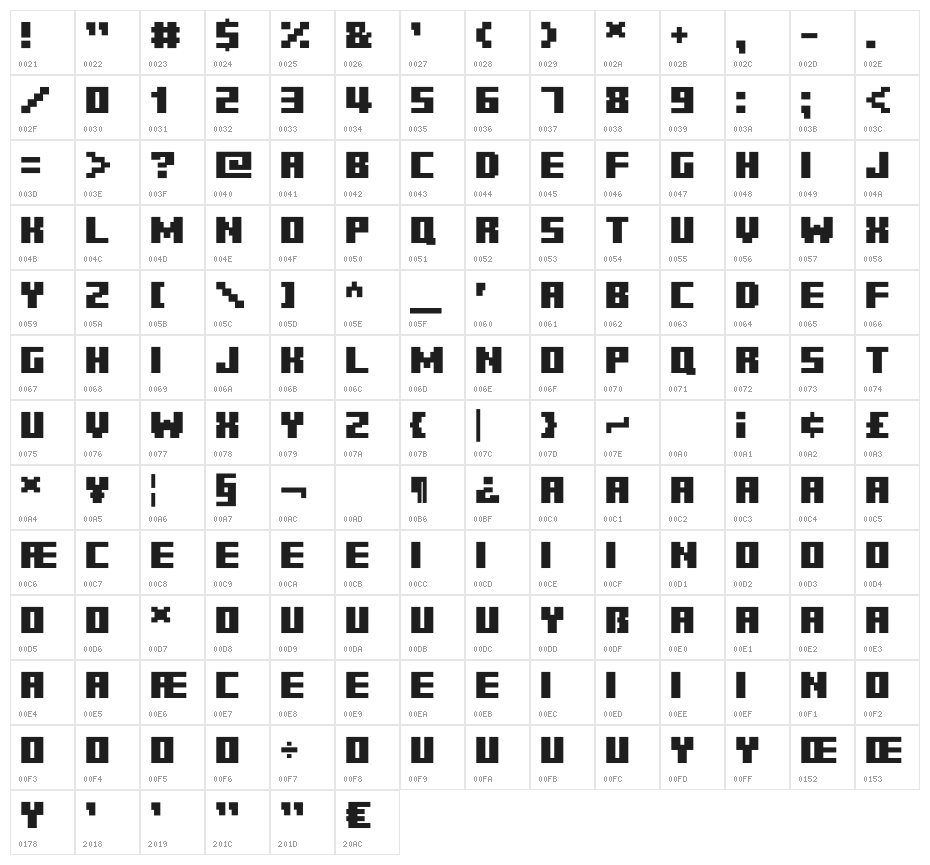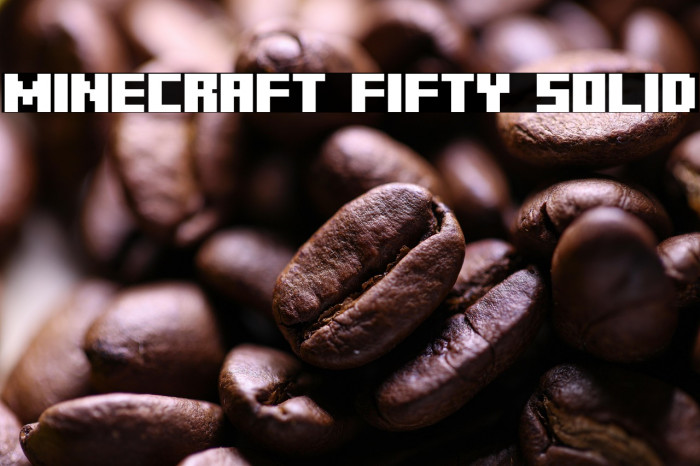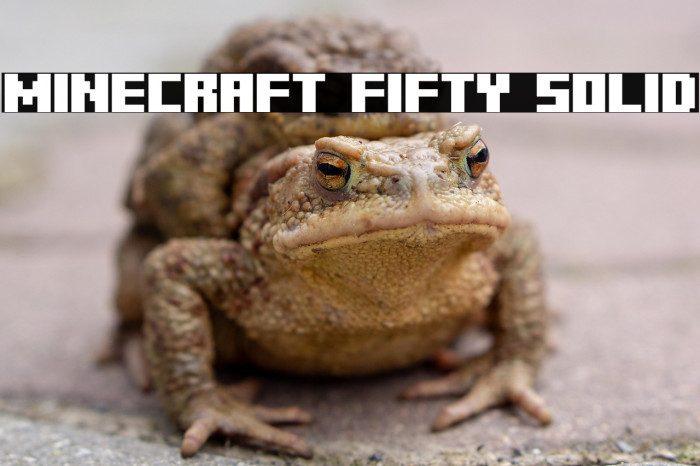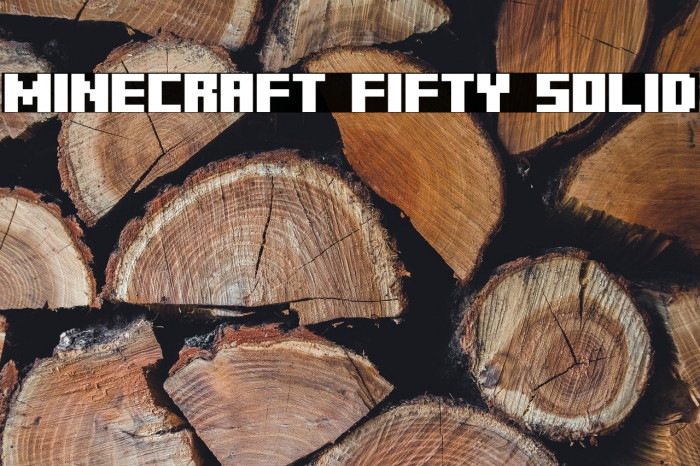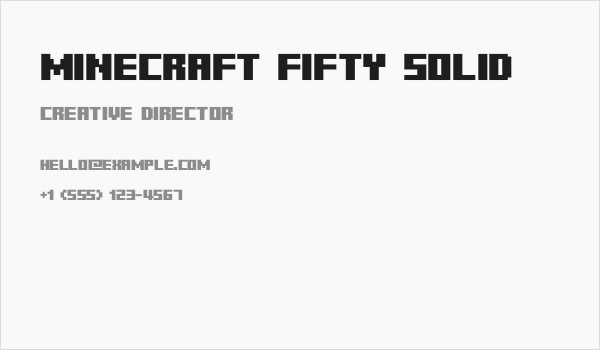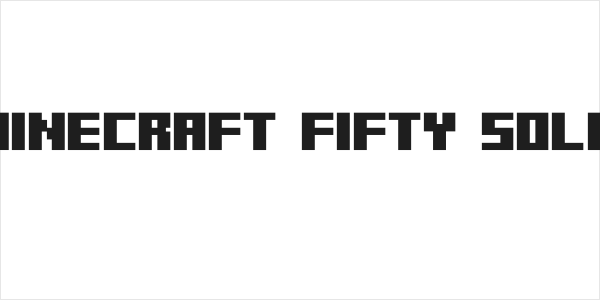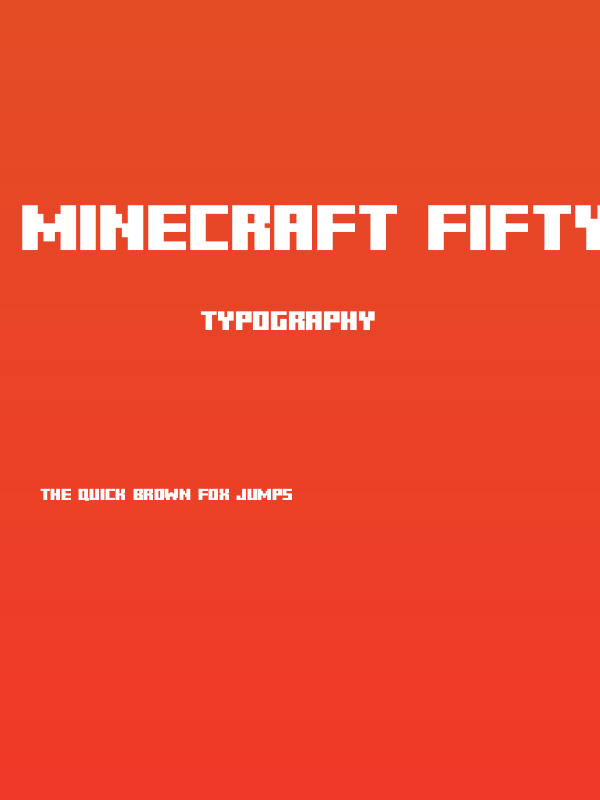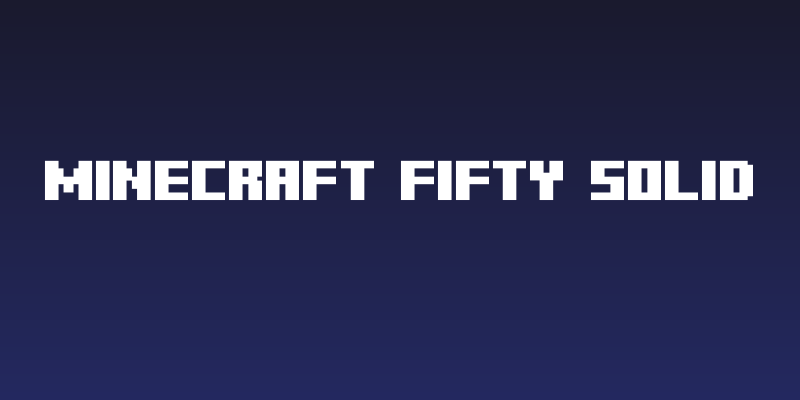
Minecraft Fifty Solid Font
Minecraft Fifty Solid Description
This font features a bold, blocky design reminiscent of pixel art, making it ideal for projects that require a retro or digital aesthetic. The characters are uniformly square, with each letter and number maintaining a consistent height and width, contributing to a cohesive and structured appearance. The font's geometric style is both playful and functional, offering a unique visual impact. It is particularly effective for capturing attention in digital and gaming contexts, where its pixelated look aligns with themes of technology and nostalgia. The font's simplicity and clarity ensure readability, even at smaller sizes, while its distinctive style adds character to any design.
| Overall Style | Retro, Digital |
| Proposed Projects | Video game titles, digital artwork, retro-themed posters, and tech-related branding. |